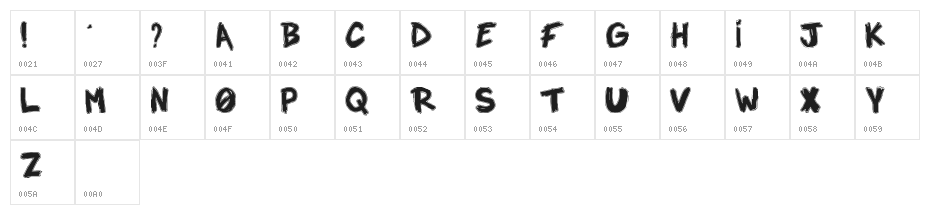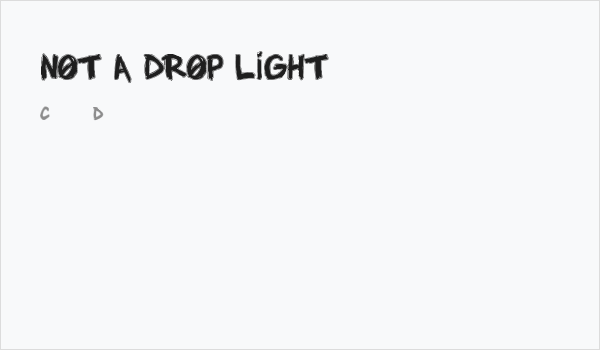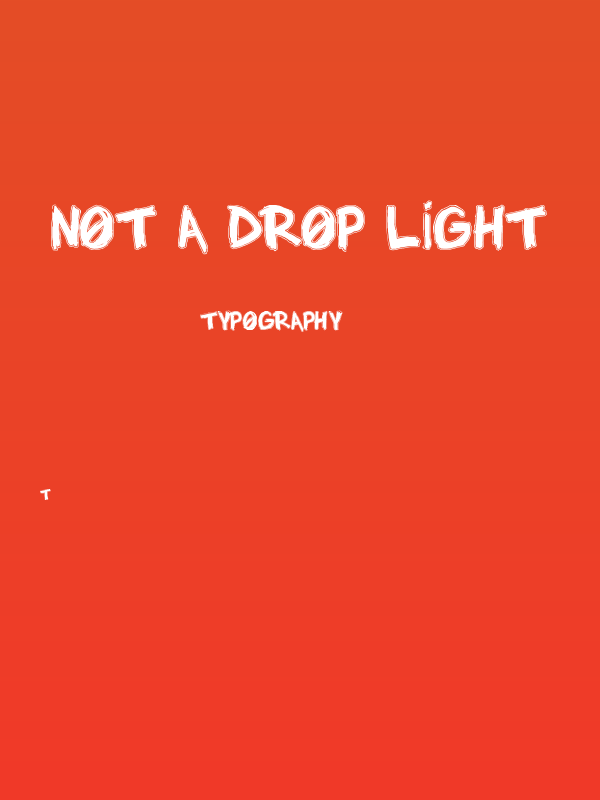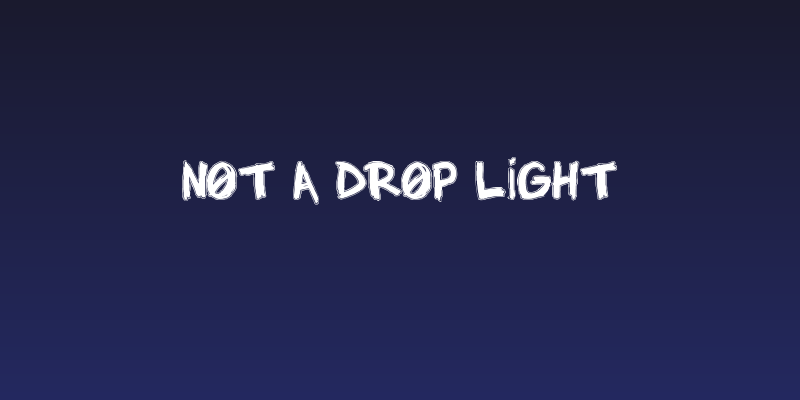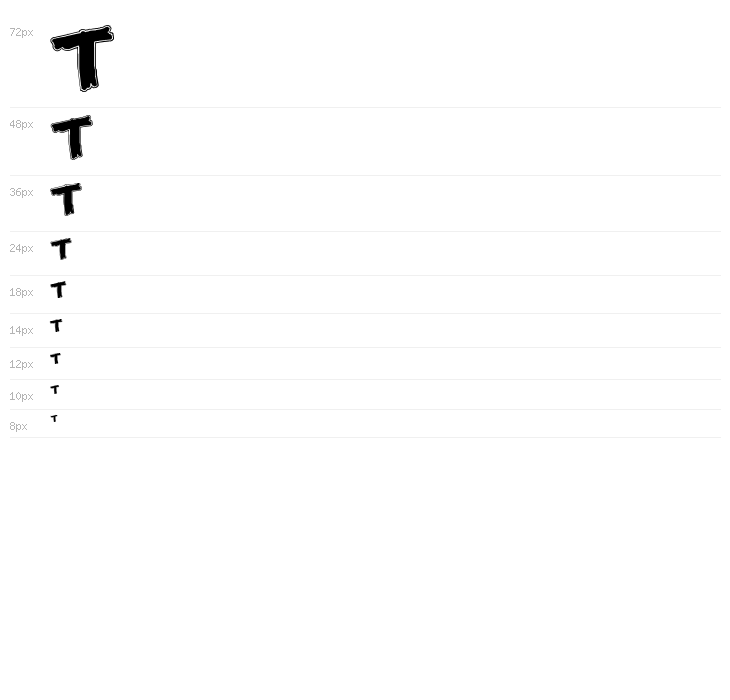
NOT A DROP LIGHT Font
NOT A DROP LIGHT Description
This font features a bold and playful style with a hand-drawn appearance. The letters are characterized by thick strokes and a slightly irregular shape, giving them a dynamic and energetic feel. The uppercase letters are prominent and stand out with their bold presence, while the special characters add a quirky touch. The font's overall look is casual and artistic, making it suitable for projects that require a fun and informal vibe. The unique design of each character ensures that the text is eye-catching and memorable.
| Overall Style | Playful, Casual, Artistic |
| Proposed Projects | Ideal for comic books, children's books, playful branding, posters, and creative social media graphics. |